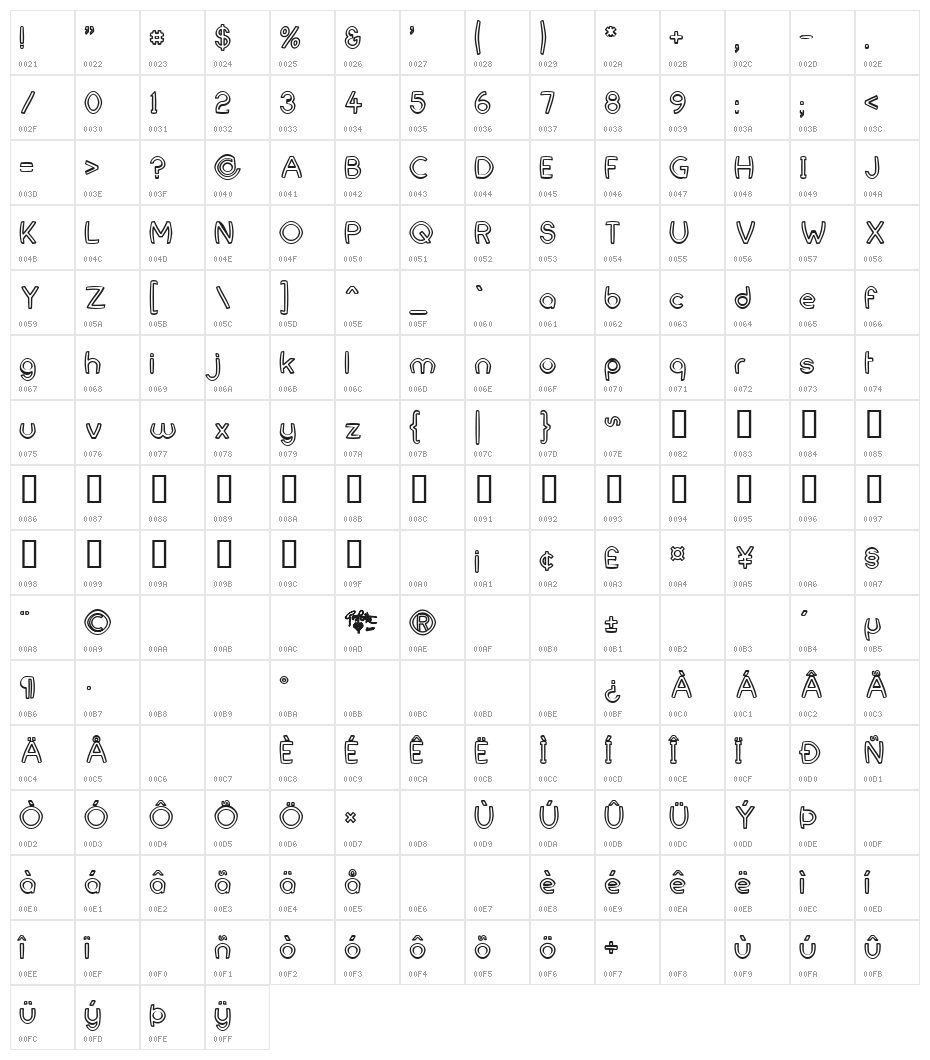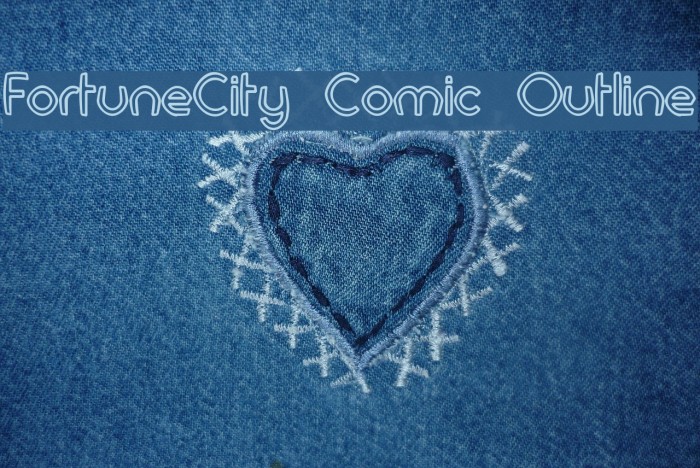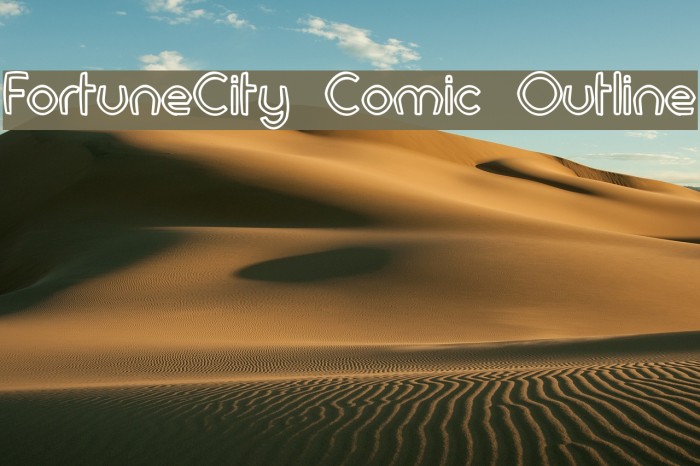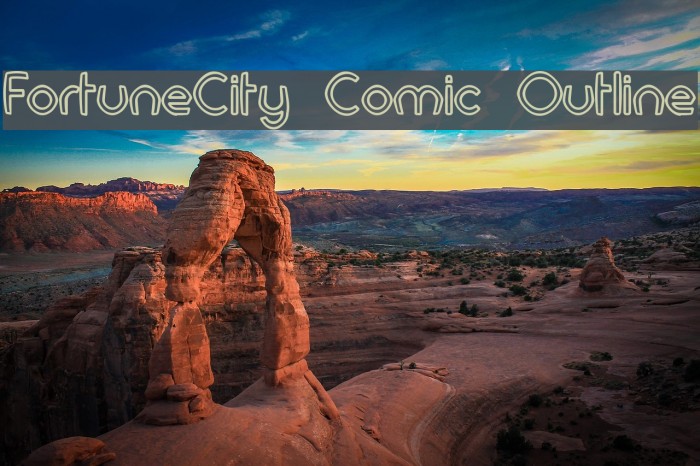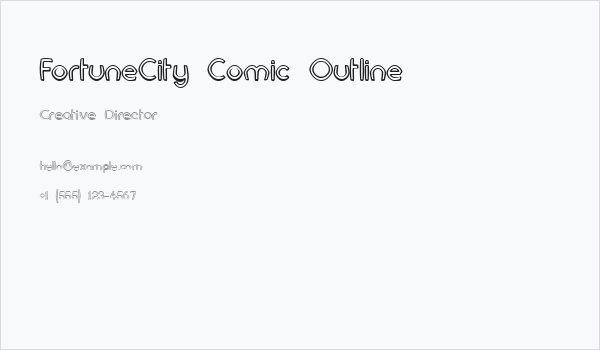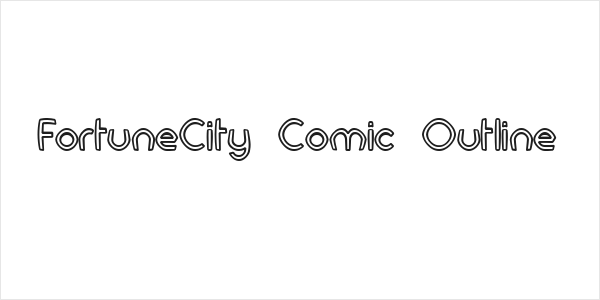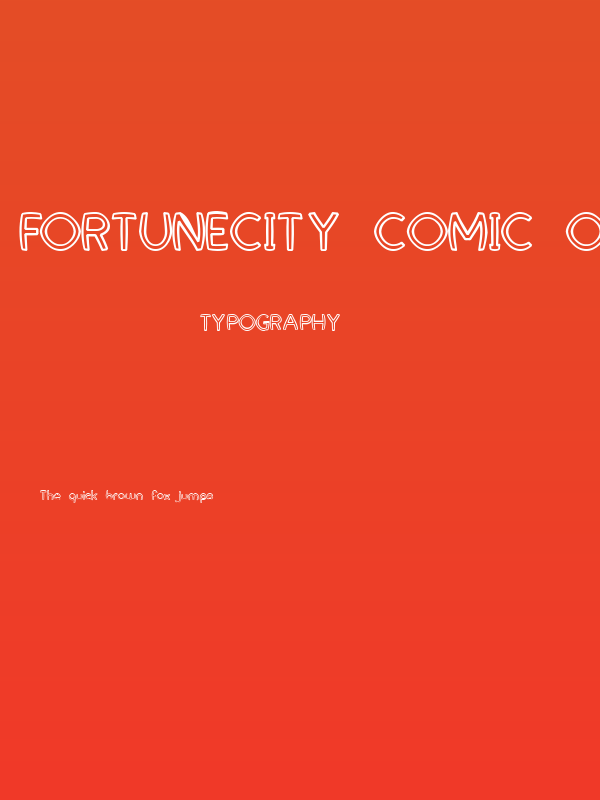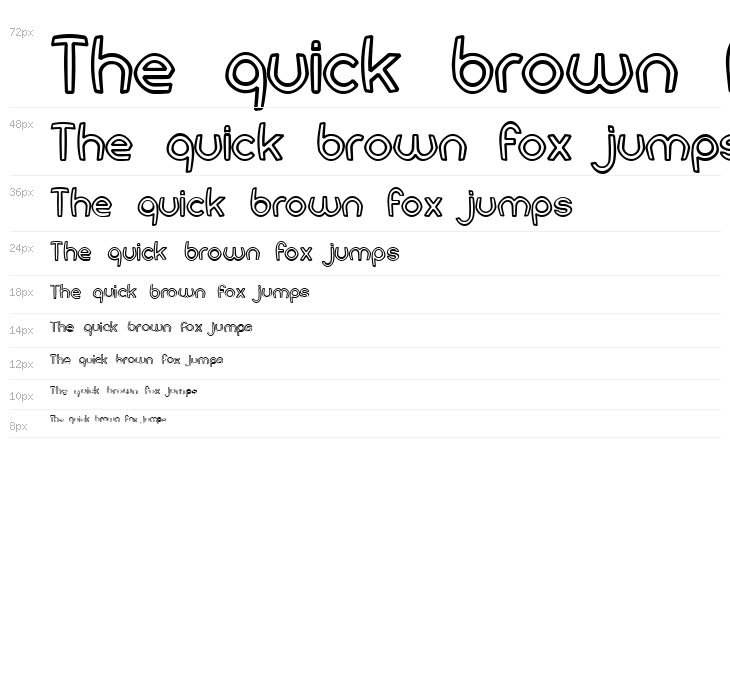
FortuneCity Comic Outline Font
FortuneCity Comic Outline Description
This playful and bold font features an outline style that gives it a comic-like appearance. The characters are rounded and slightly irregular, adding a whimsical and informal touch. The uppercase and lowercase letters maintain a consistent height, while the numbers and special characters are designed to match the overall aesthetic. The font's outline nature makes it stand out, making it ideal for creative and fun projects. Its legibility and unique style make it suitable for a variety of uses where a lighthearted and engaging look is desired.
| Overall Style | Playful, Comic |
| Proposed Projects | Ideal for comic books, children's books, playful branding, posters, and greeting cards. |